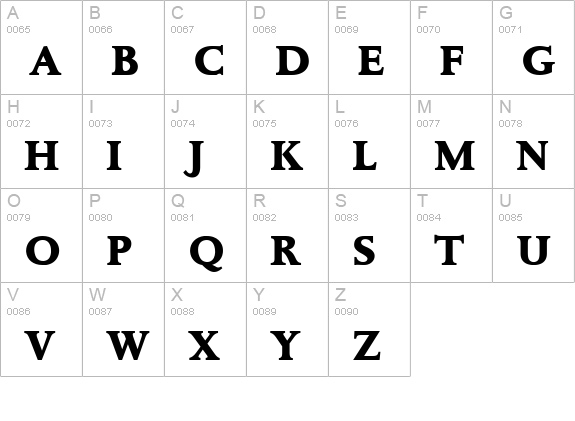
Prorenata Display SSi font is a stunning and elegant typeface that exudes sophistication and charm. With its unique and stylish design, this font is perfect for creating eye-catching headlines, titles, and branding materials. The Prorenata Display SSi font features a harmonious balance of sleek lines and graceful curves, making it a versatile choice for a wide range of design projects. What makes Prorenata Display SSi font even more appealing is that it is available for free download at FontsMarket.com. This means that you can easily access and use this beautiful font in your projects without any cost. Whether you are working on a professional design project or a personal creative endeavor, Prorenata Display SSi font is sure to elevate your work with its timeless elegance and sophistication. Download it today and add a touch of refinement to your designs.